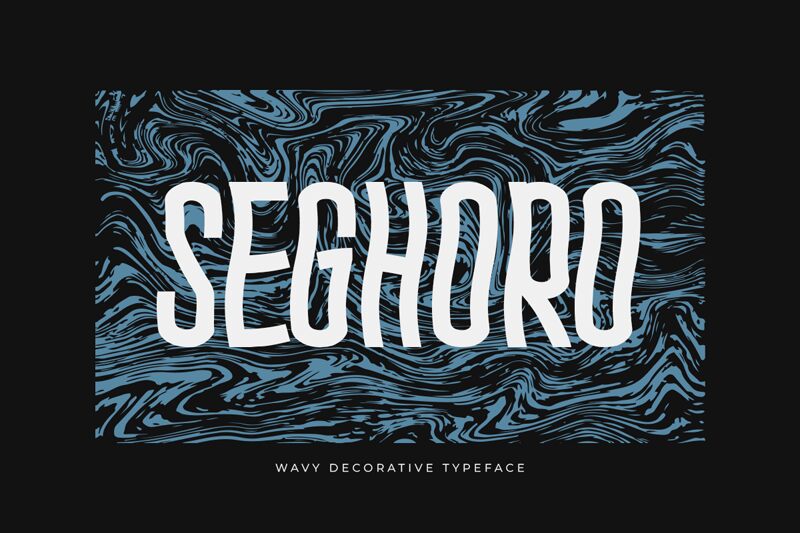
Seghoro
Seghoro, crafted by Kong Font, stands out as a captivating display typeface with a uniquely distorted style. Its semi-light weight paired with an extra-condensed width creates a striking visual tension that commands attention. The playful yet sophisticated distortion of the letterforms gives Seghoro an edgy and modern vibe, ideal for designers looking to inject personality and dynamism into their work.
The font's aesthetic appeal is undeniable; it balances legibility with artistic flair. The stretched and contorted shapes of the letters evoke a sense of movement and individuality, making Seghoro particularly suited for creative projects that require stand-out typography.
Whether used in branding, poster designs, or digital media, Seghoro's distinctive character ensures that any message conveyed is not just seen but felt. This font invites adventurous creatives to explore its potential in conveying messages with impact and style.